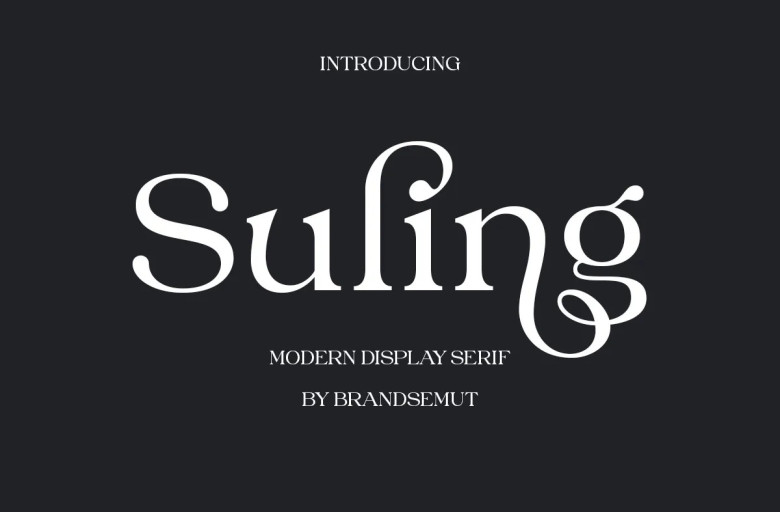
Suling Font
We are introducing Suling Modern Display Serif. Suling is a display serif, a font elegant and modern best used for heading, logo, branding, magazine and product packaging as well quickly set invites. Suling comes fully equipped with Ligature and many Alternates yet looks clean, smooth-lined curved giving any project an added dash of class.
Suling Modern Display Serif Font